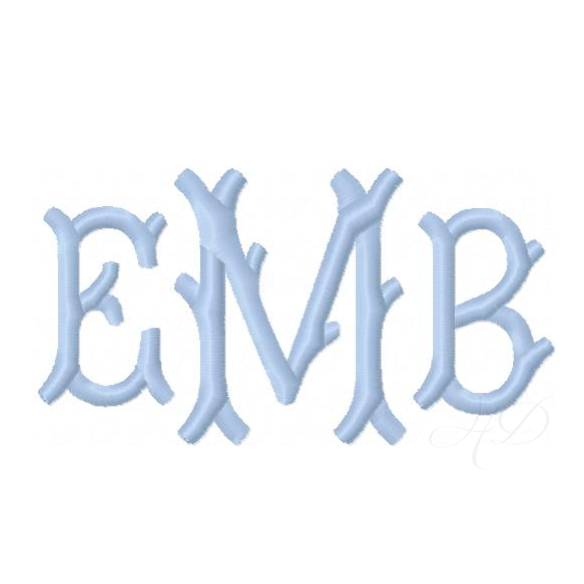
Blair Satin Small Embroidery Font
Elevate your projects with the Blair Satin Small Embroidery Font, designed for machine embroidery enthusiasts. This versatile font package offers 12 sizes including .5", .75", 1", and up to 3", all compatible with 4x4 hoops or larger. The elegant Chinoiserie Chic style fishtail monogram adds a unique flair to your personalized items.